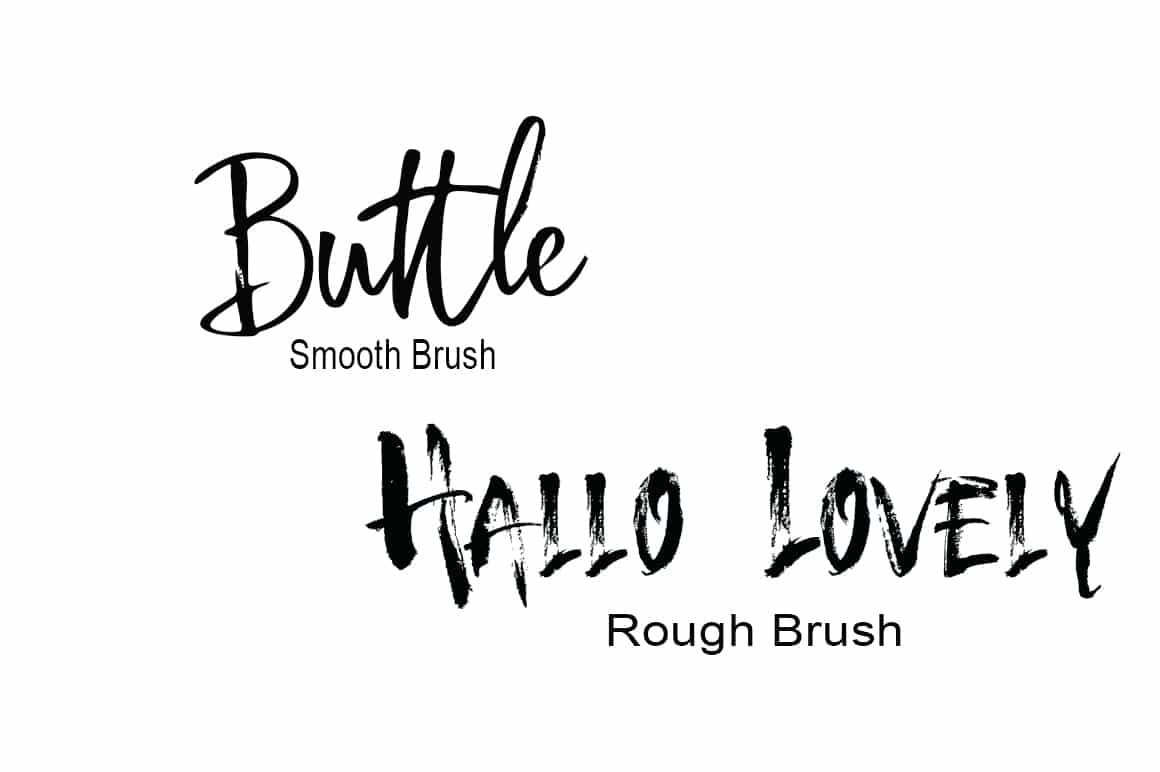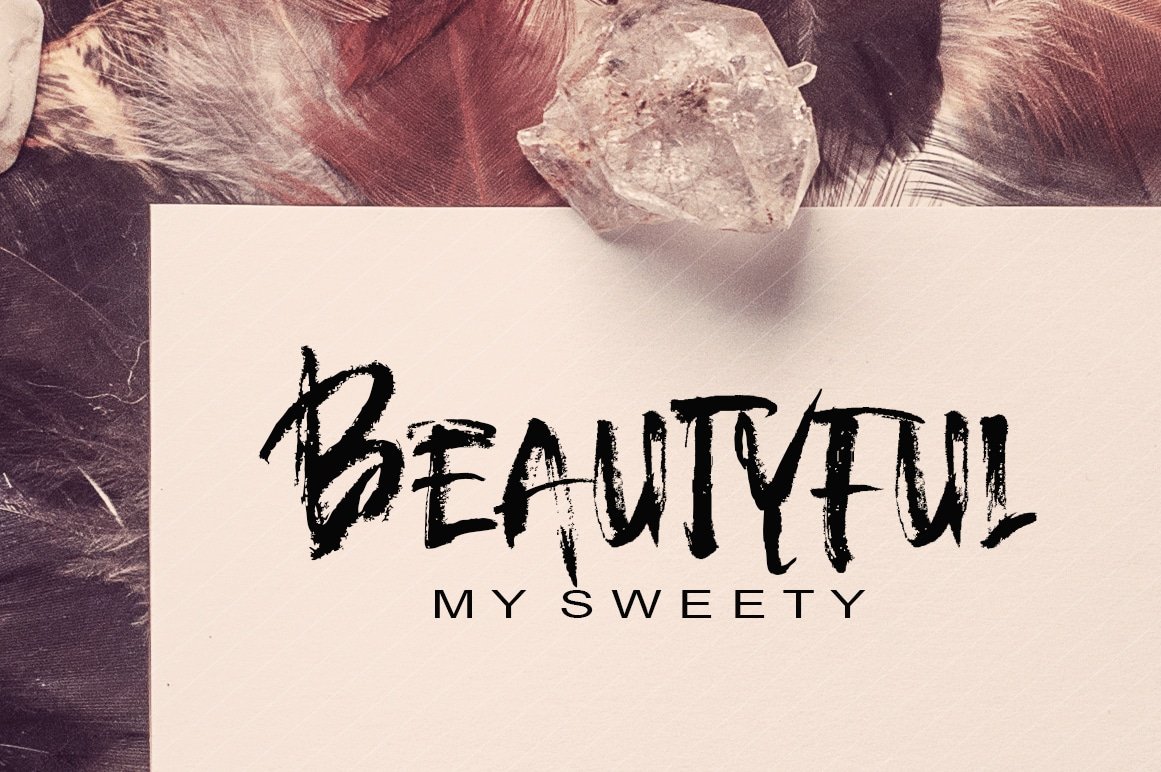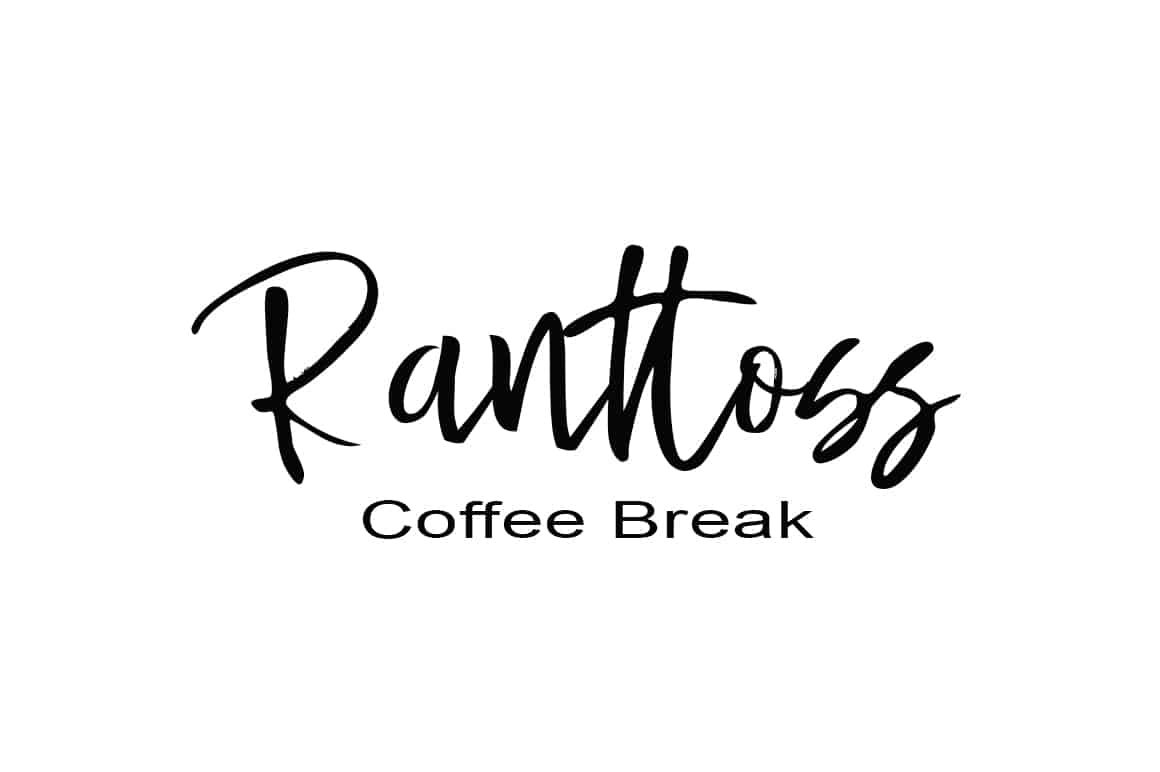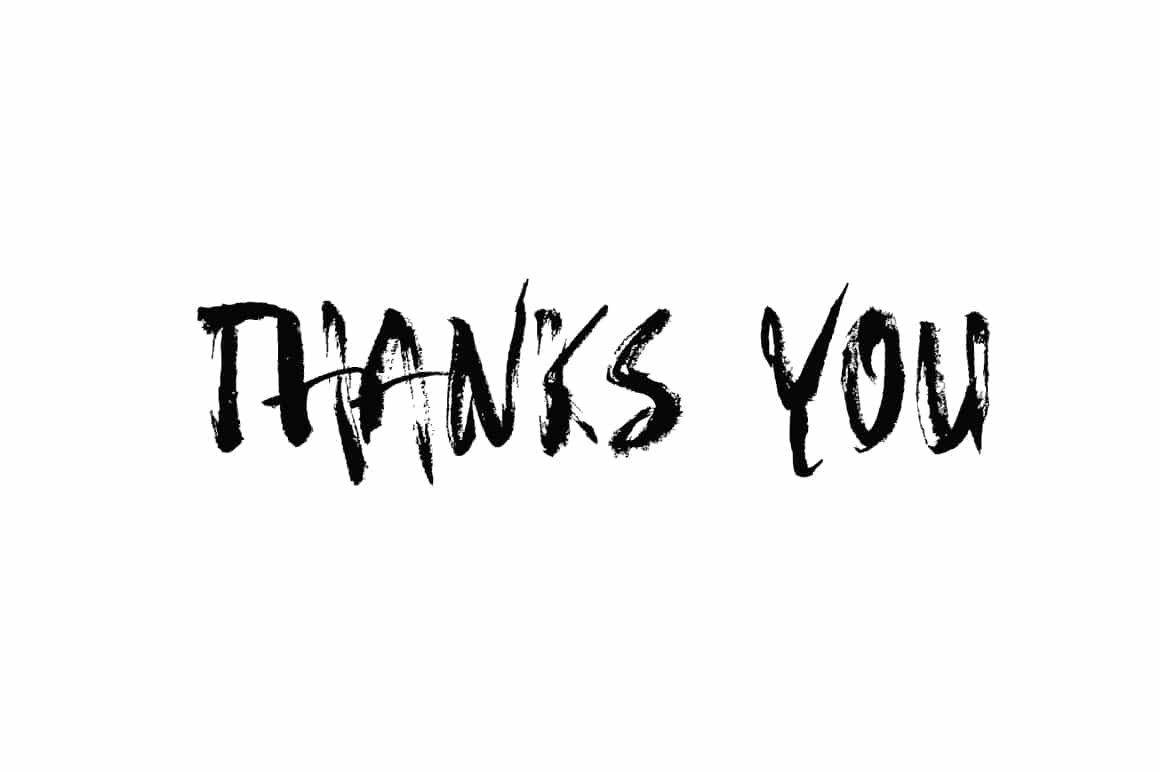
Buttle Font Duo Font
Buttle Font Duo is an organic and expressive handwritten brush script font specifically designed for versatility. It’s legible and casual, making it perfect for display style designs, and oozes personality.